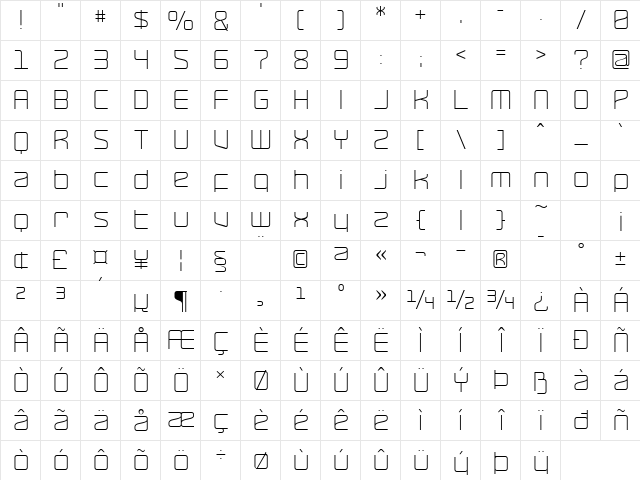
RaveParty Thin Regular
Design Context for RaveParty Thin Typeface
RaveParty Thin offers clean, dependable letterforms without strong stylistic allegiance, making it a practical choice for designers who need flexibility. Its slender proportions lend an understated elegance to any composition.